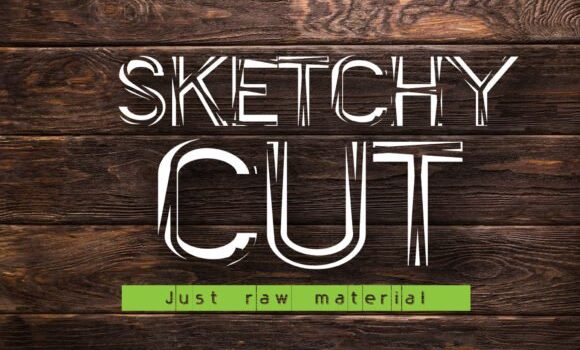
SketchyCut Font – Free Download Introduction to SketchyCut Font The SketchyCut font is a casual and fun display font. 📸 Preview Gallery 4 images 📌 Product Name SketchyCut Font 👤 Author pointsandpicas 📂 Category Explore ⬇️ Download SketchyCut Font FREE